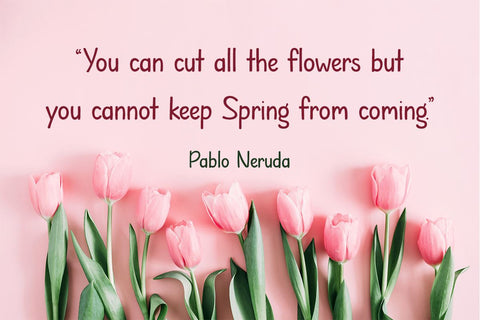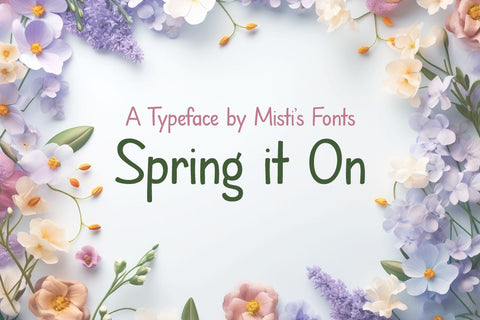
Spring It On
“Spring it On” is handwritten font perfect for those looking to add a personal, handmade touch to their designs. Whether it’s wedding invitations that speak of new journeys, greeting cards that spread cheer, or branding materials that need a breath of fresh air, this font delivers with its playful yet elegant demeanor. Its versatility makes it ideal for a wide range of applications – from digital designs to print, it adds a layer of intimacy and friendliness that is hard to resist.